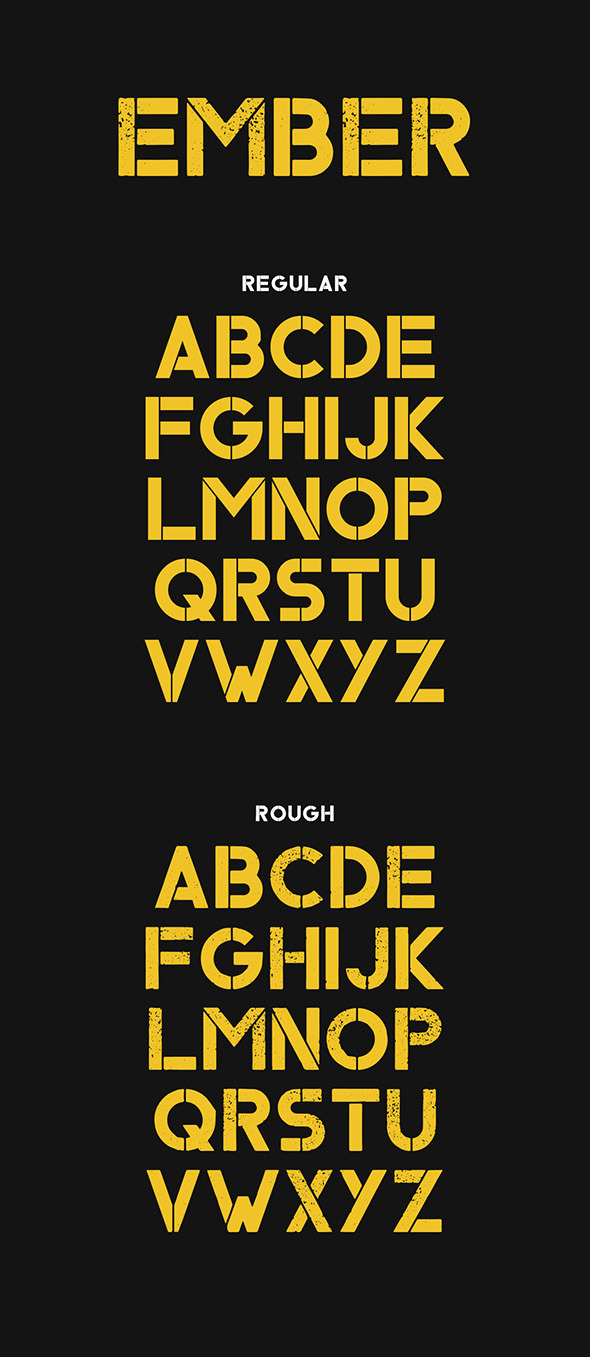
Ember is a big stencil font in 2 different styles. It’s great for all urban, post-apocalyptic, and impactful headings. It includes English uppercase letters, numbers and punctuation.